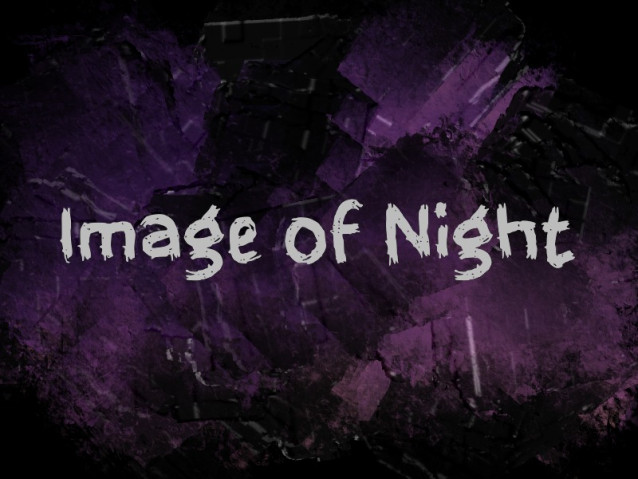
Image of Night Font
Image of Night Font is a charming handwritten font that brings a natural, friendly feel to any design. With its slightly irregular strokes and organic shapes, it mimics the look of real handwriting, making your text feel more personal and approachable.